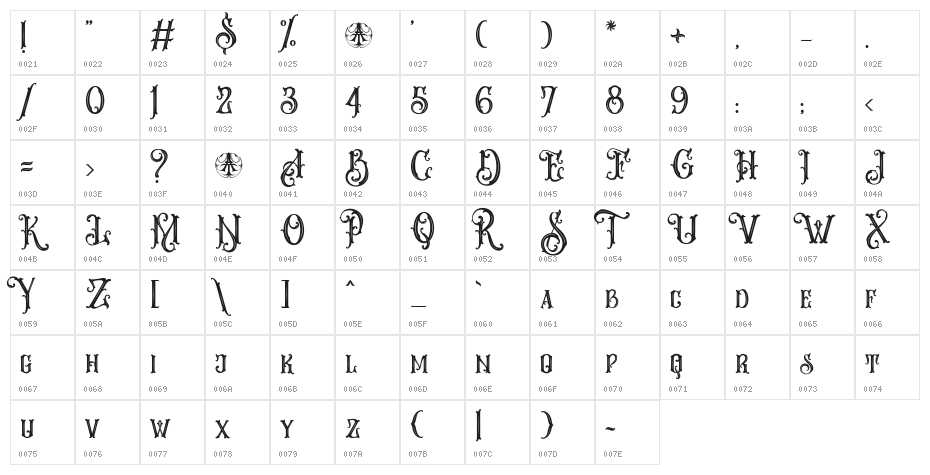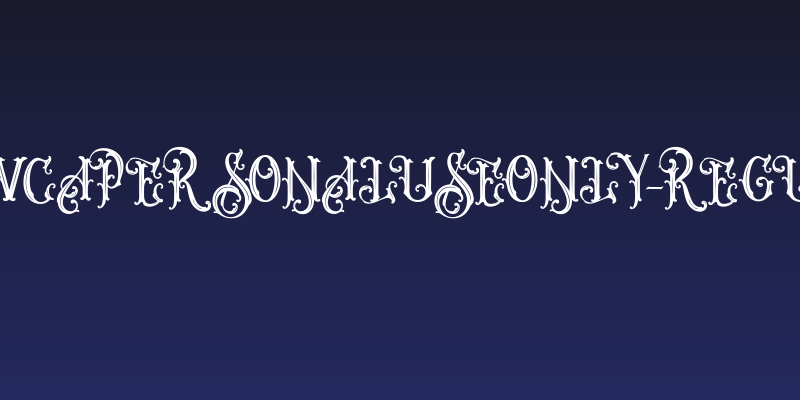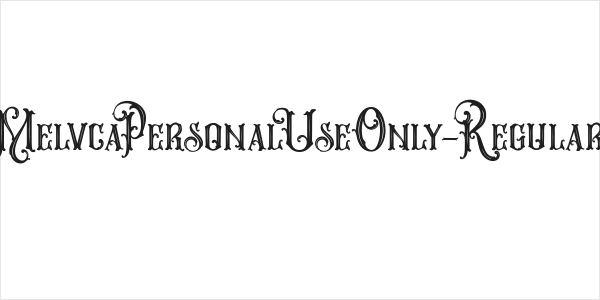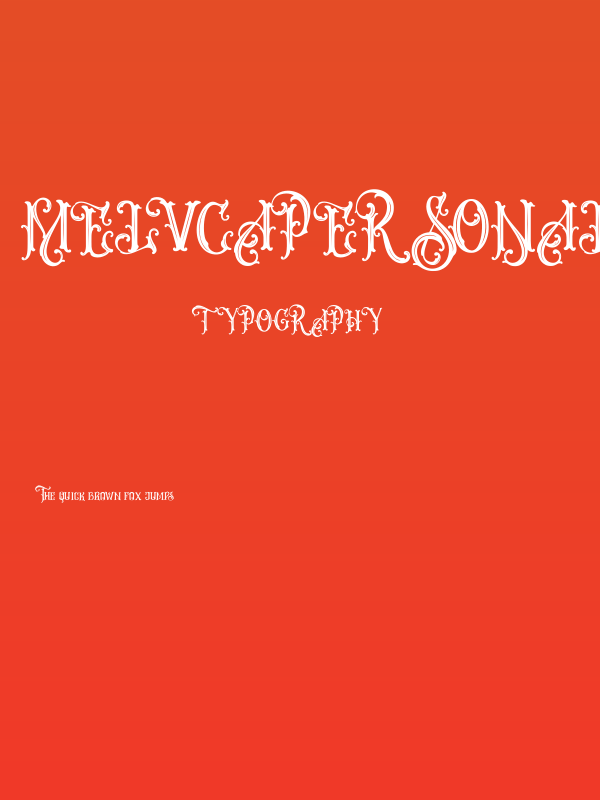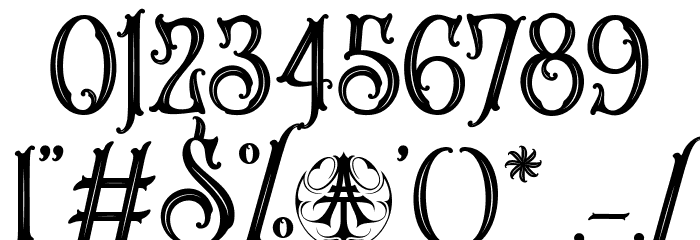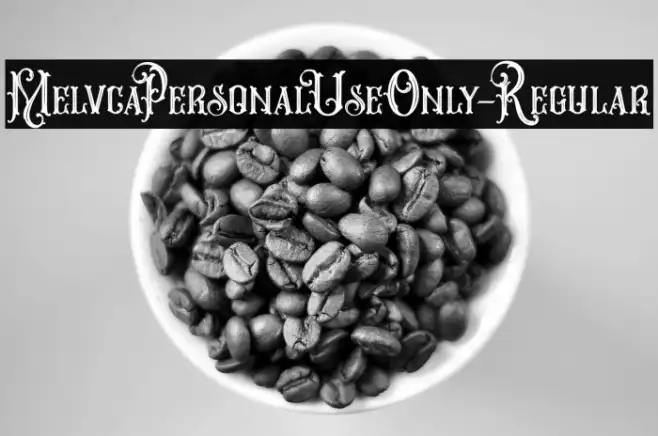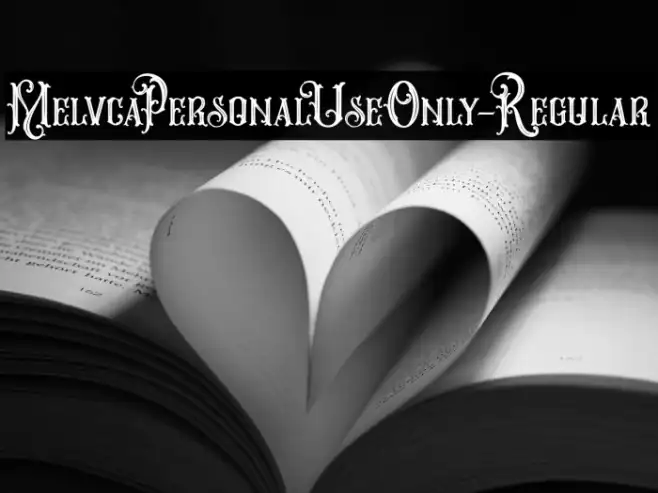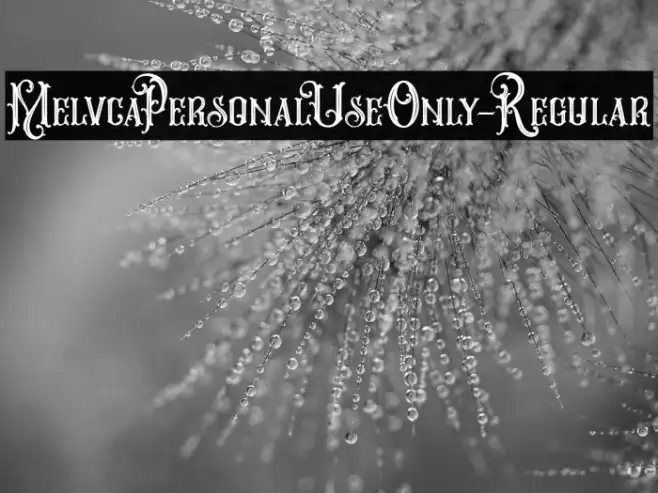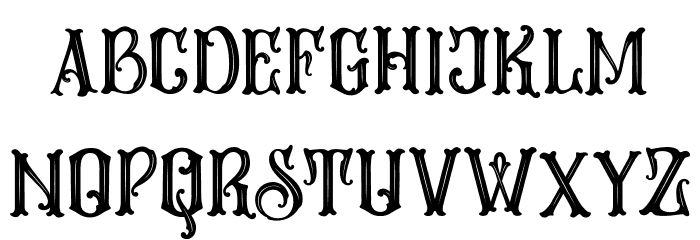
MelvcaPersonalUseOnly-Regular Font
MelvcaPersonalUseOnly-Regular Description
This font features an ornate and decorative style, characterized by intricate swirls and embellishments that give it a vintage and elegant appearance. The uppercase letters are particularly elaborate, with each character adorned with unique flourishes that add a sense of grandeur and sophistication. The lowercase letters maintain a consistent decorative theme, though they are slightly less ornate than their uppercase counterparts. The numerals are bold and stylized, matching the overall decorative theme of the font. Special characters are equally embellished, making them stand out with their artistic flair. This font is ideal for projects that require a touch of elegance and historical charm.